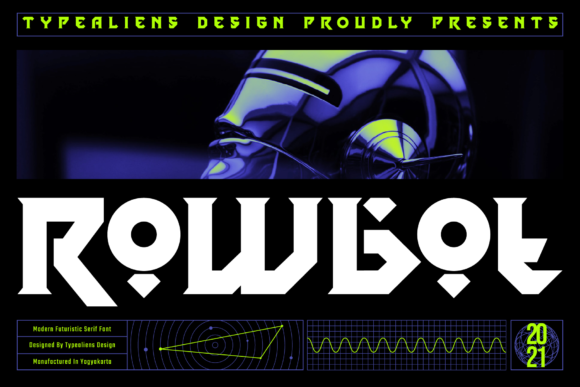
Rowbot Font
Rowbot is a cool, bold and modern display font. Add it confidently to your favorite creations and let yourself be amazed by the outcome generated.